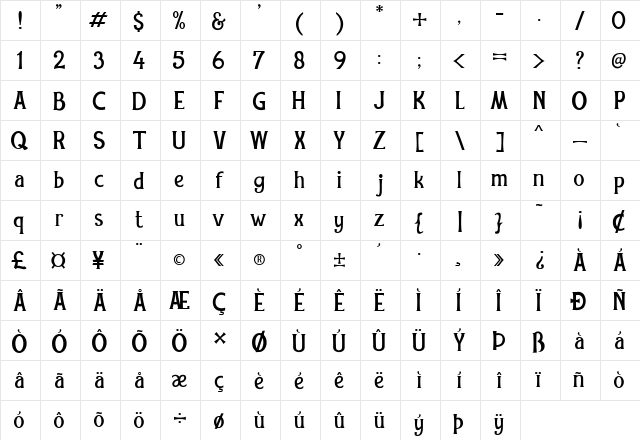
Rexmone DEMO Regular
| Foundry | Andi Winarno, Inkstypia |
Design Context for Rexmone DEMO Typeface
Rexmone DEMO takes a measured approach to typography — its balanced proportions and neutral character make it a reliable workhorse for both digital and print work.
Pro Tip: Use Rexmone DEMO in both headline and body roles to test its range before committing to a single application.